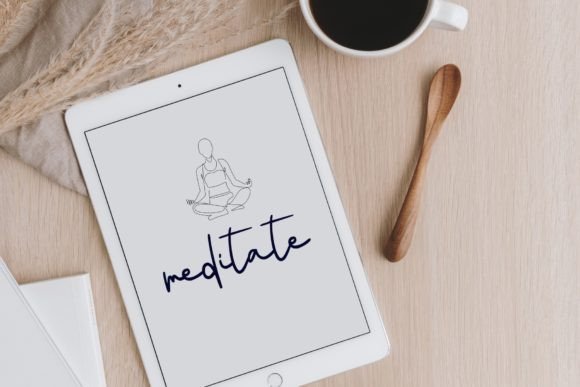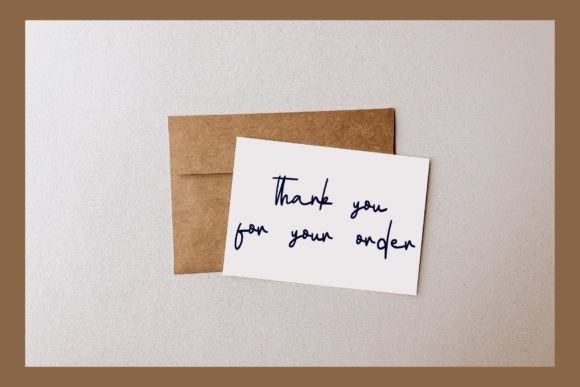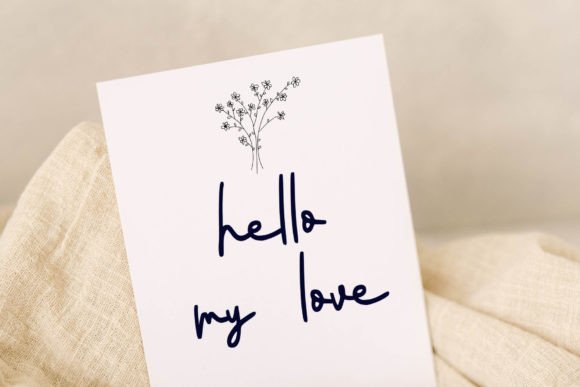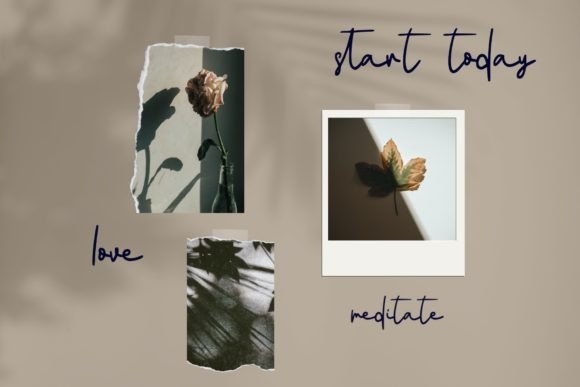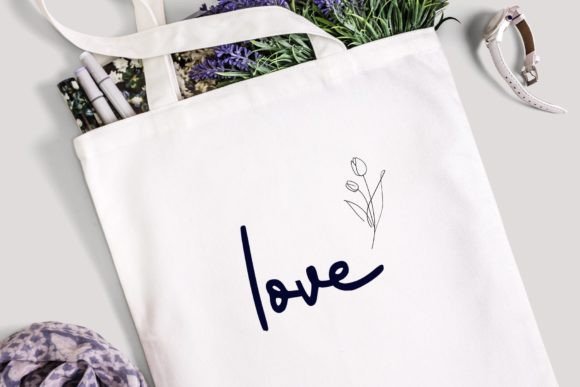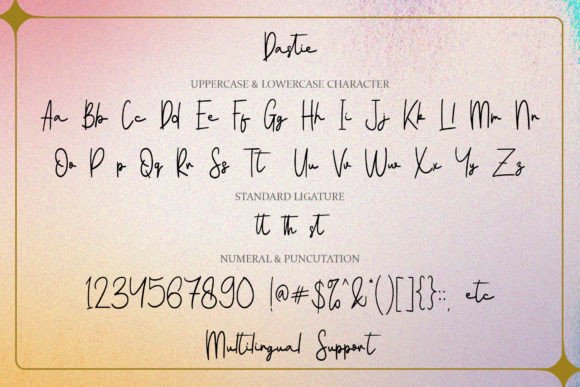
Dastie Font: The Sweet and Friendly Handwritten Font for Your Creative Projects
Are you a designer, crafter, or DIY enthusiast looking for a font that can add a personal touch to your creative projects? Look no further than Dastie Font, a sweet and friendly handwritten font that’s perfect for a wide range of designs. With its natural and unique style, Dastie Font is incredibly versatile and can be used in various contexts, from crafting and scrapbooking to branding and advertising.
The Charm of Dastie Font
Dastie Font is a beautifully crafted handwritten font that’s designed to evoke a sense of warmth and friendliness. Its natural and unique style makes it stand out from more traditional fonts, adding a personal touch to any design. Whether you’re creating a handmade card, a customized gift tag, or a brand identity, Dastie Font is the perfect choice for adding a touch of whimsy and charm.
What Makes Dastie Font So Versatile?
So, what makes Dastie Font so versatile? The answer lies in its unique design. With its flowing lines and natural imperfections, Dastie Font has a distinctly handmade feel that’s perfect for a wide range of creative projects. Here are just a few examples of how you can use Dastie Font:
- Crafting and Scrapbooking: Add a personal touch to your handmade crafts and scrapbook pages with Dastie Font. Use it to create customized titles, captions, and journaling.
- Branding and Advertising: Use Dastie Font to create a unique brand identity that’s friendly and approachable. It’s perfect for logos, business cards, and marketing materials.
- Stationery and Invitations: Create beautiful handmade stationery and invitations with Dastie Font. It’s perfect for adding a personal touch to your correspondence.
- Digital Design: Dastie Font is also perfect for digital design projects, such as social media graphics, blog posts, and website headers.
The Benefits of Using Dastie Font
So, why choose Dastie Font for your creative projects? Here are just a few benefits of using this beautiful handwritten font:
- Unique and Eye-Catching: Dastie Font is a unique and eye-catching font that’s sure to grab attention. Its natural and handmade feel makes it stand out from more traditional fonts.
- Versatile: Dastie Font is incredibly versatile and can be used in a wide range of creative projects, from crafting and scrapbooking to branding and advertising.
- Easy to Read: Despite its handmade feel, Dastie Font is easy to read and understand, making it perfect for use in body text and captions.
- Customizable: Dastie Font can be customized to fit your needs. Use it in different sizes, colors, and styles to create a unique look that’s all your own.
- Pair it with Other Fonts: Dastie Font pairs well with other fonts, so don’t be afraid to experiment with different combinations.
In conclusion, Dastie Font is a sweet and friendly handwritten font that’s perfect for a wide range of creative projects. Its natural and unique style makes it incredibly versatile, and its easy-to-read design makes it perfect for use in body text and captions. Whether you’re a designer, crafter, or DIY enthusiast, Dastie Font is a great choice for adding a personal touch to your designs. So why wait? Download Dastie Font today and start creating beautiful, handmade designs that are sure to impress!